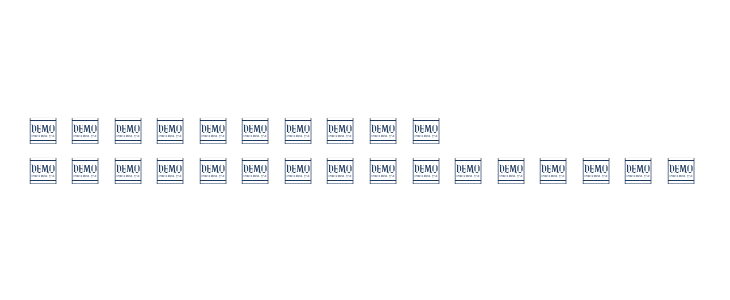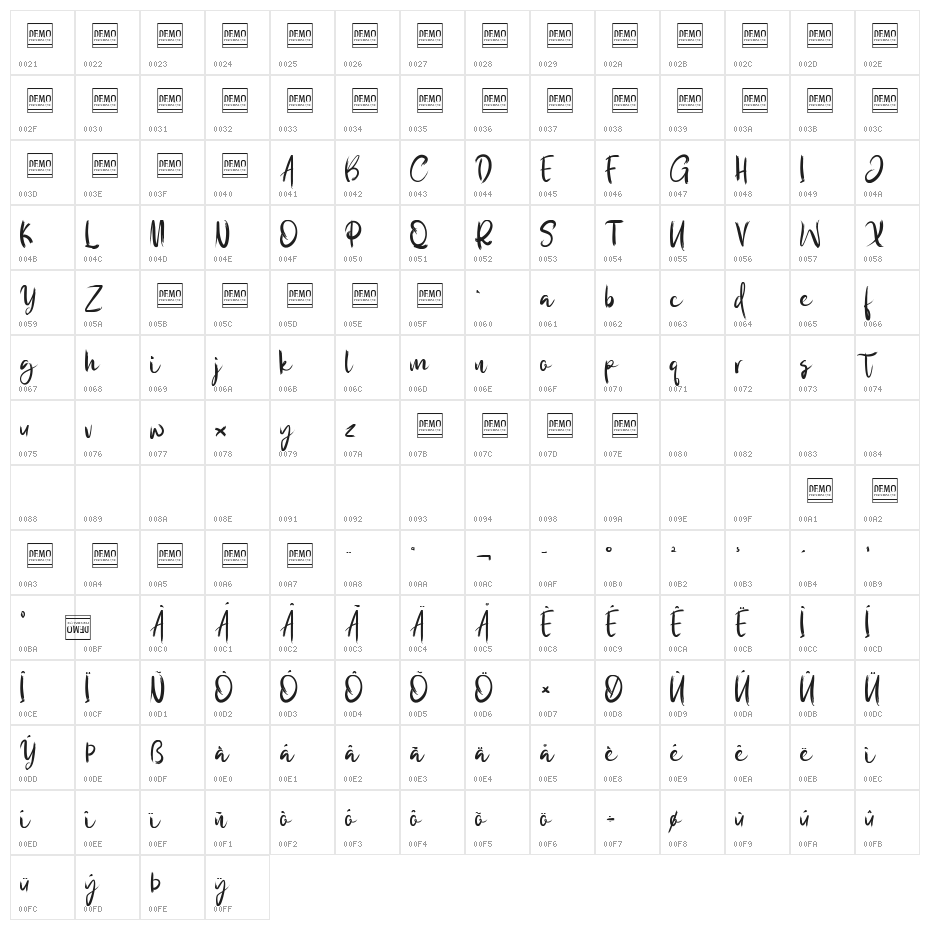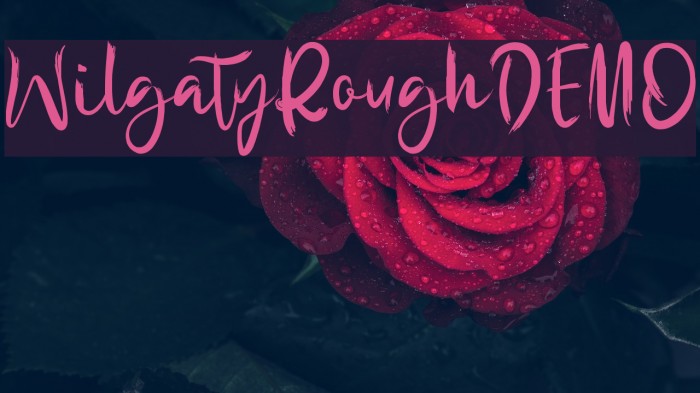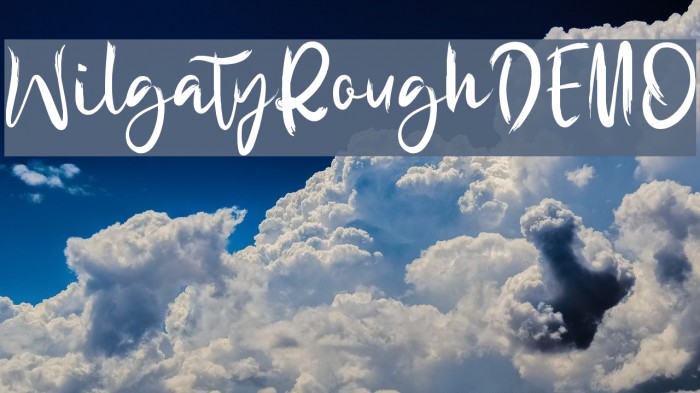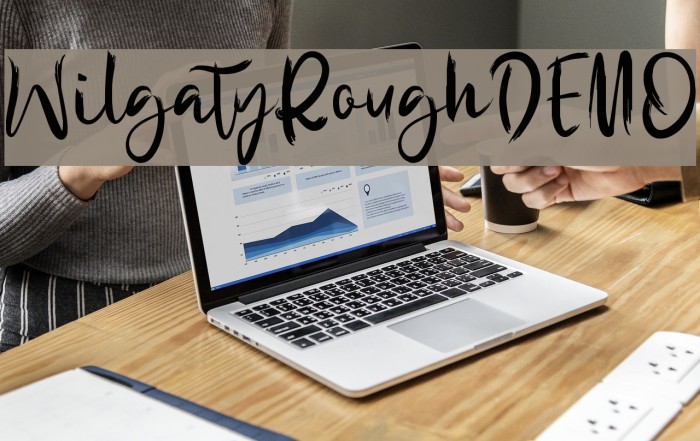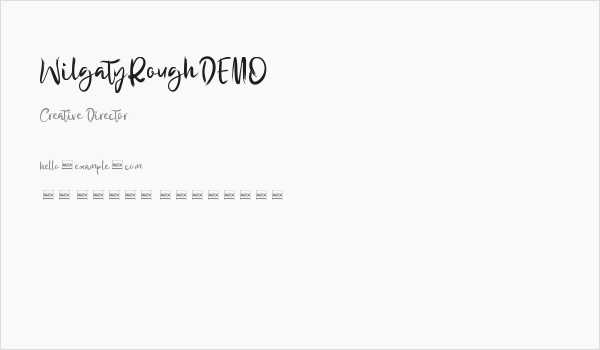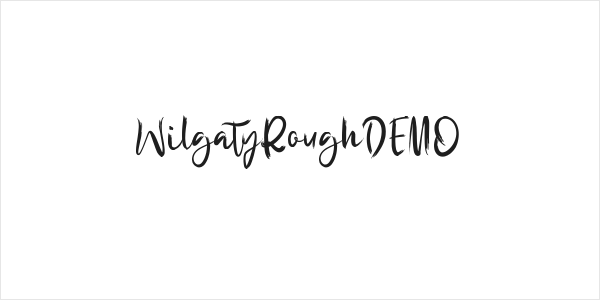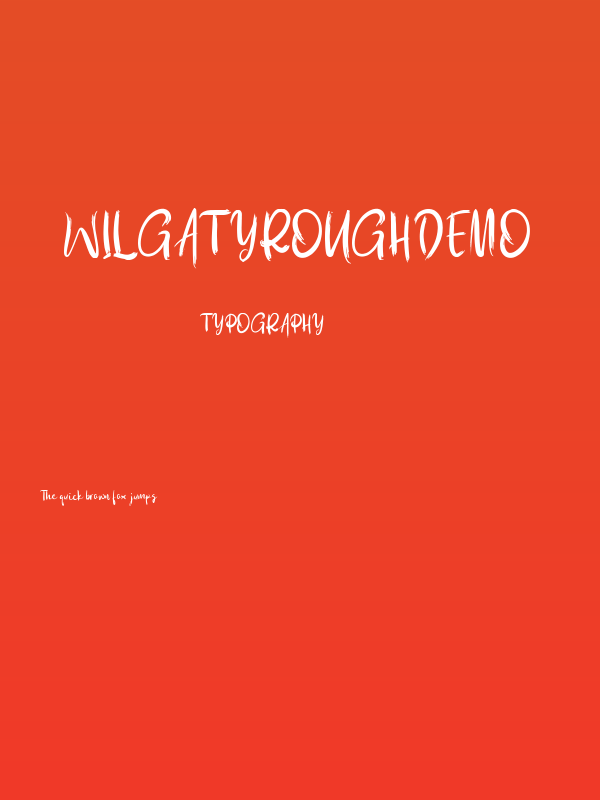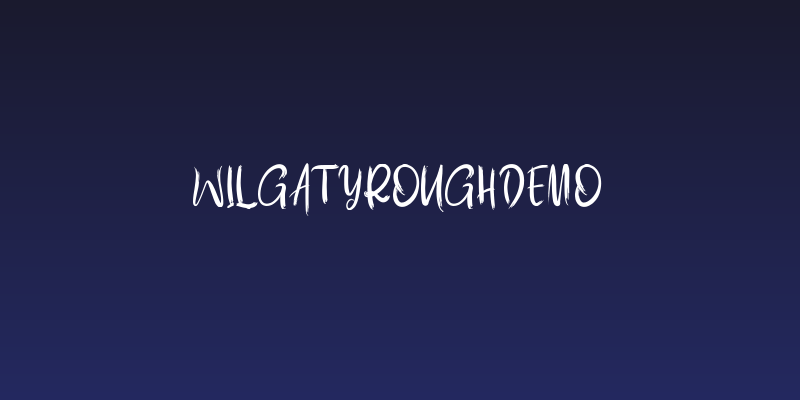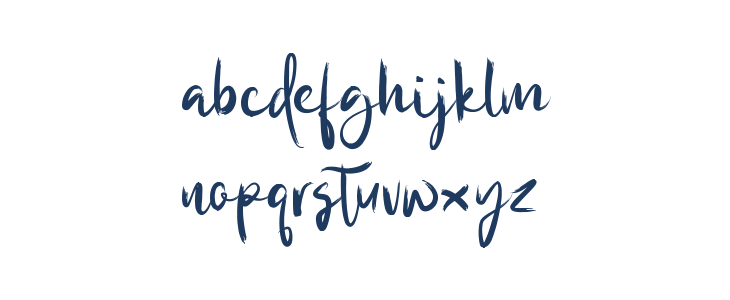
WilgatyRoughDEMO Font
WilgatyRoughDEMO Description
This font exudes a bold and expressive style, characterized by its brush-like strokes that convey a sense of movement and dynamism. The uppercase and lowercase letters are crafted with a fluidity that mimics hand-painted calligraphy, giving it an artistic and personal touch. The strokes vary in thickness, adding to the font's energetic and lively appearance. The characters are slightly irregular, enhancing the handcrafted feel. This font is ideal for projects that require a creative and informal look, such as artistic branding, posters, and invitations. Its unique style makes it stand out, capturing attention with its dramatic flair.
| Proposed Projects | Ideal for artistic branding, posters, invitations, and creative designs. |